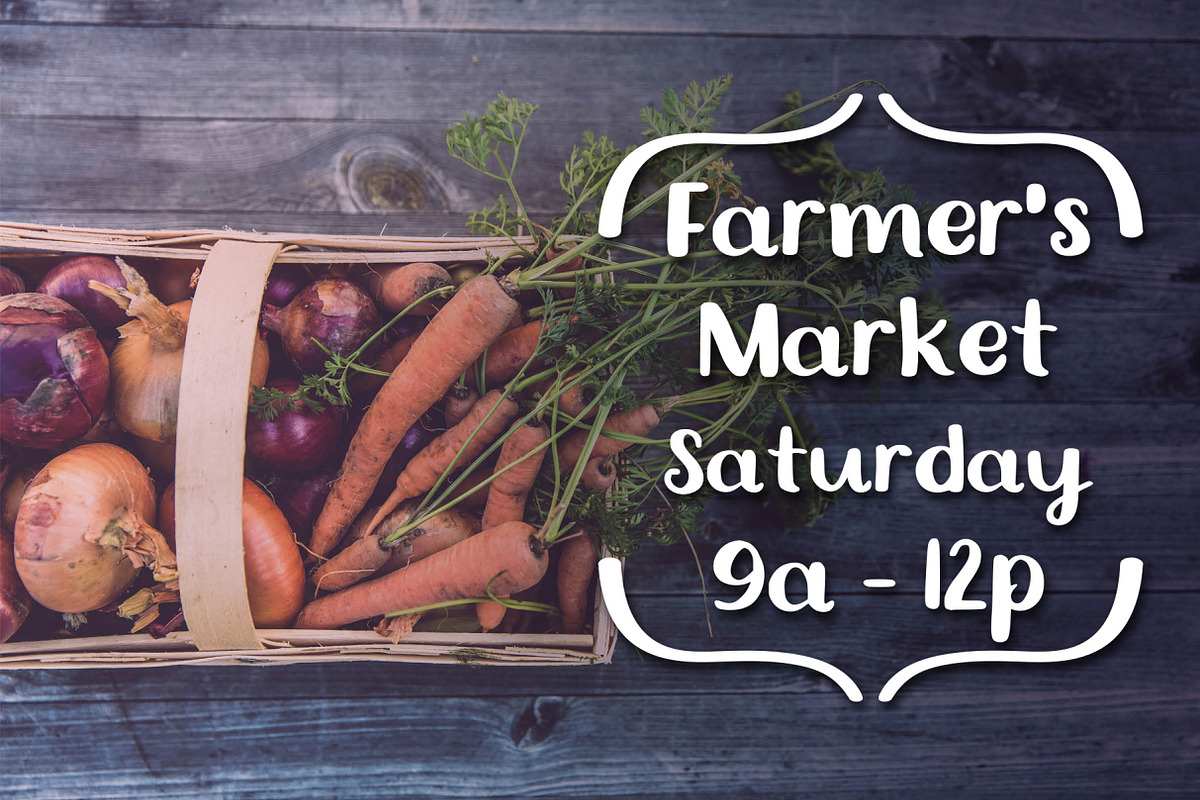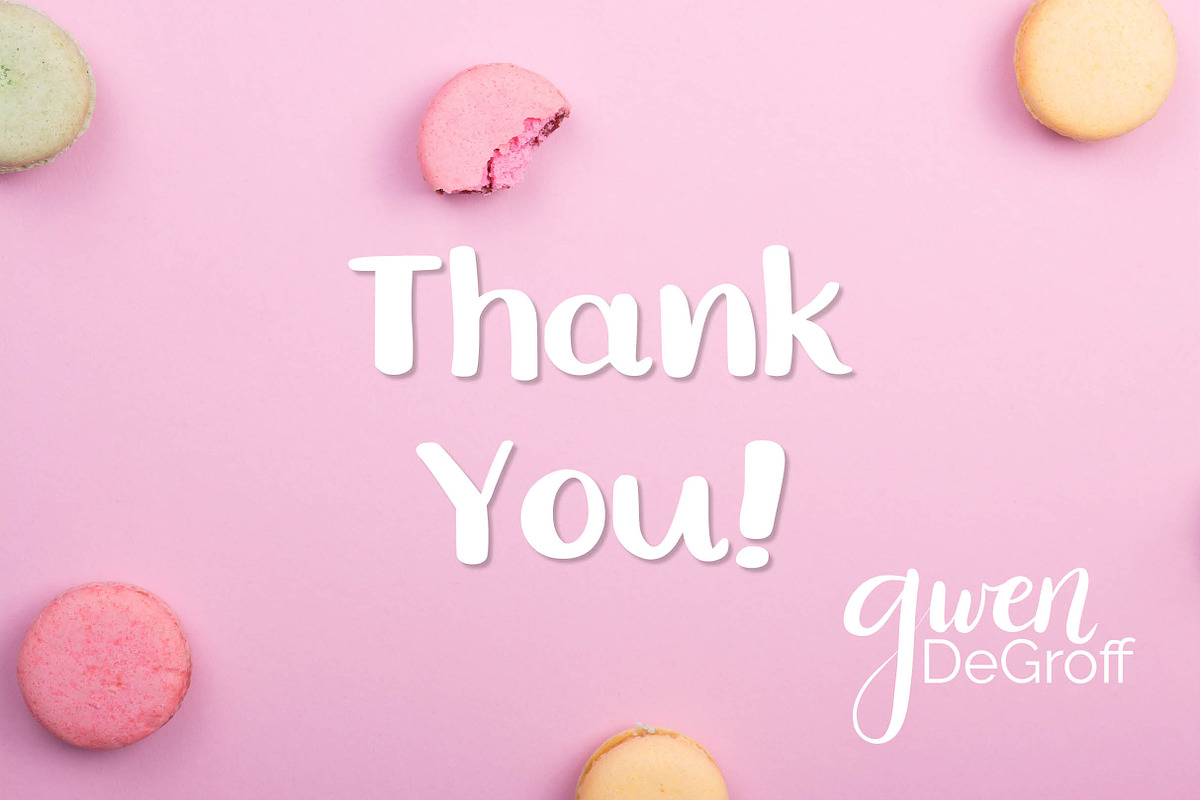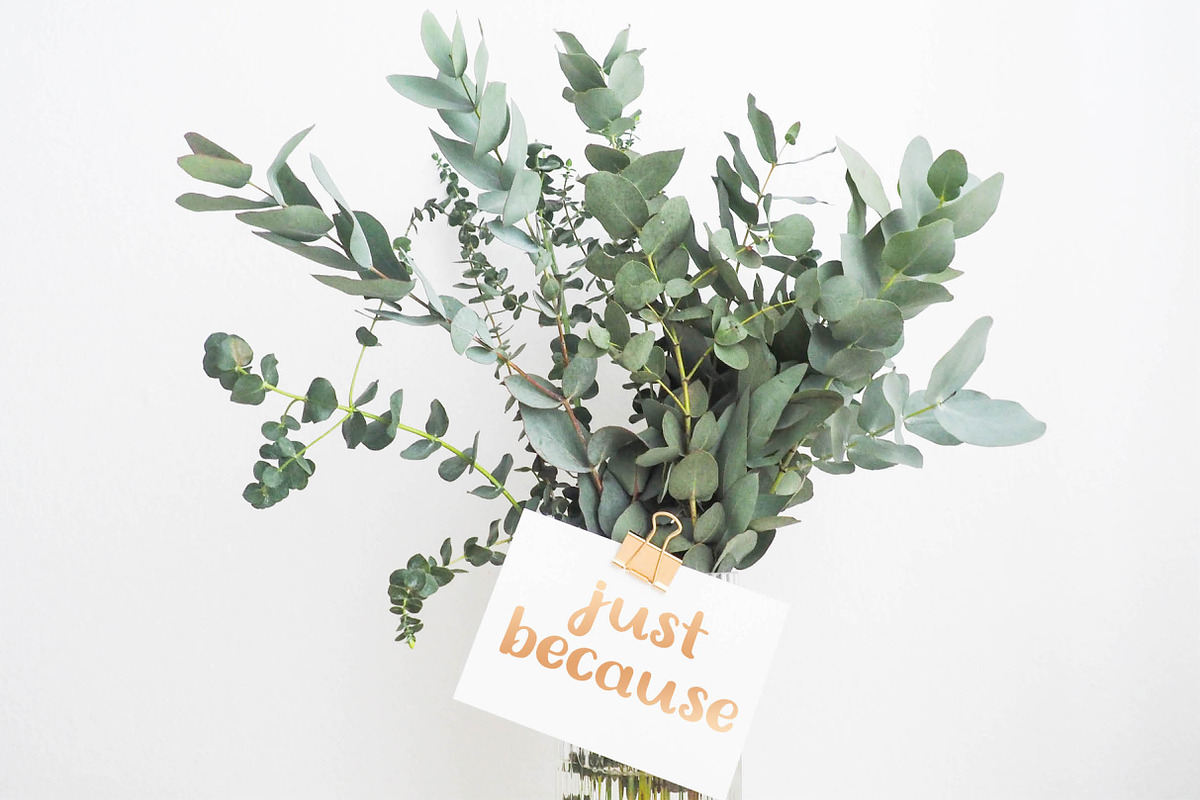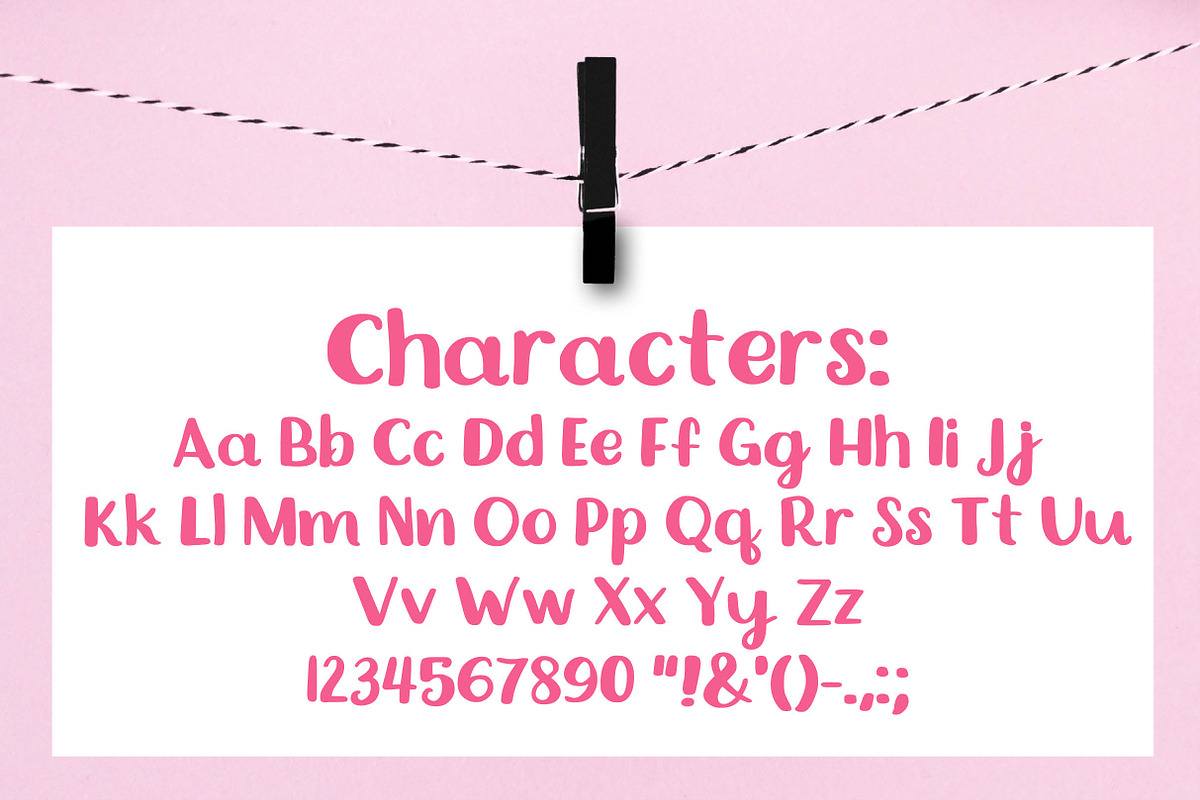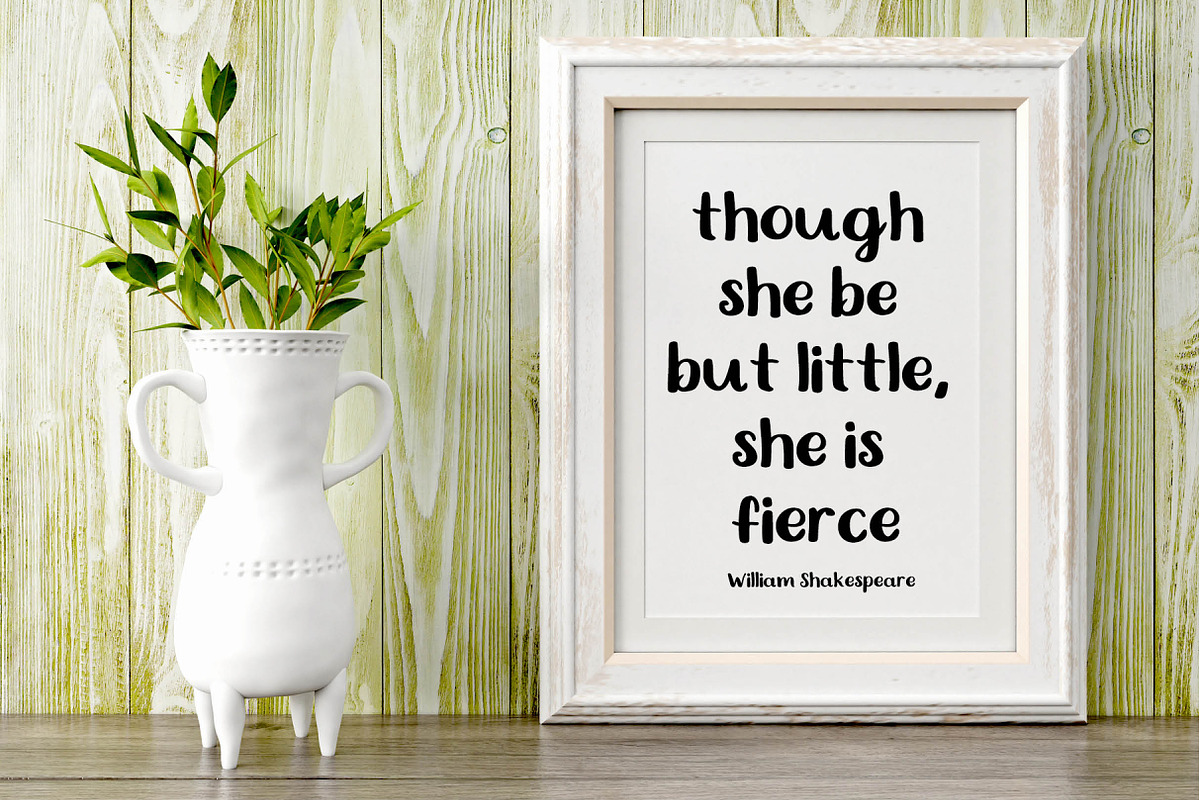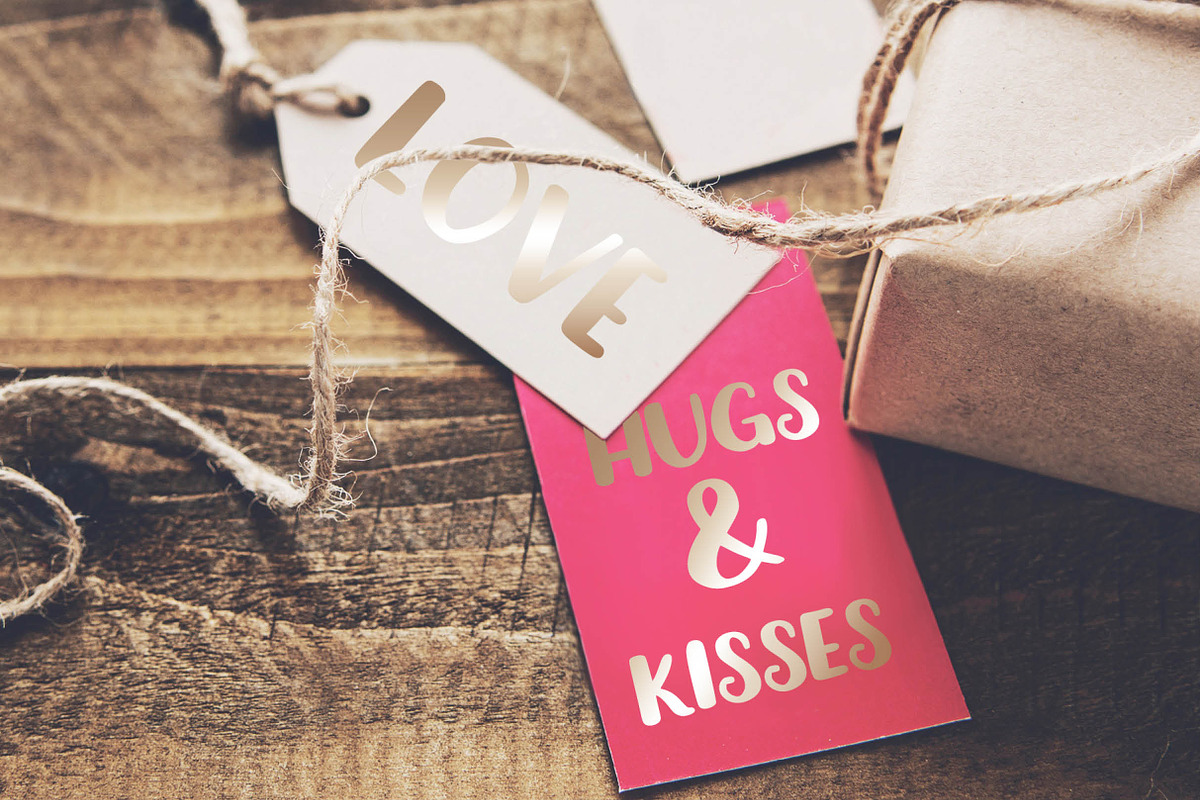
Susanna - A Sweet Handwritten Font
Have you been looking for the perfect, sweet handwriting typeface? Well here she is!
Susanna is a darling font for invitations, Instagram posts, blogs, nursery decor, cards and more!